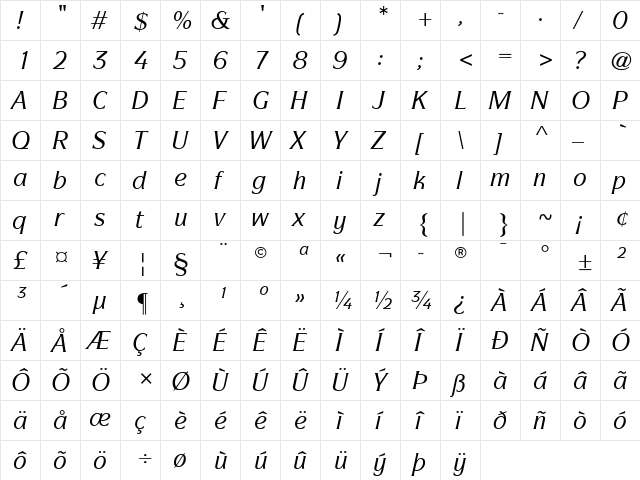
ITCSymbol Medium Italic Font Preview
ITCSymbol Medium Italic
ITCSymbol Medium Italic Font Details
Design Context for ITCSymbol Medium Typeface
ITCSymbol Medium offers clean, dependable letterforms without strong stylistic allegiance, making it a practical choice for designers who need flexibility. Its italic angle brings a sense of urgency and motion to the letterforms.
Pro Tip: Try ITCSymbol Medium for annotation and caption copy alongside an upright companion — the contrast in angle creates a dynamic but ordered typographic system.